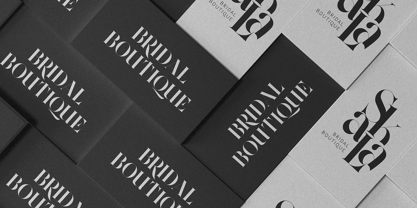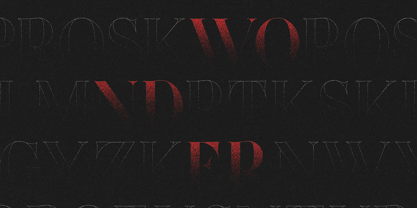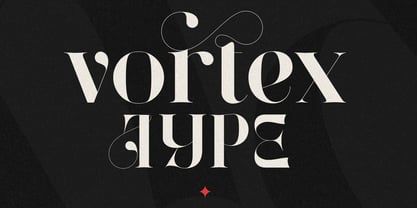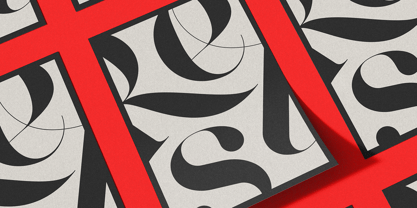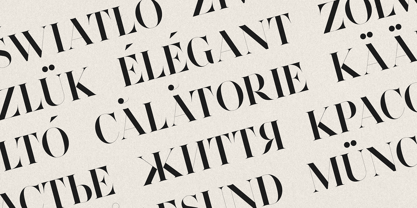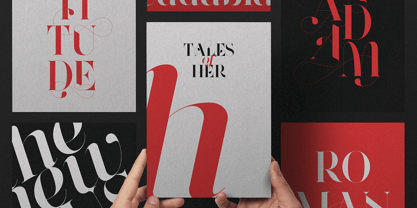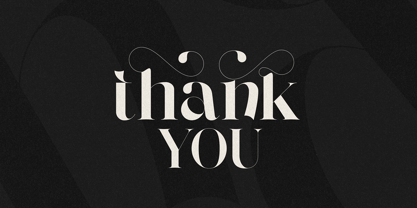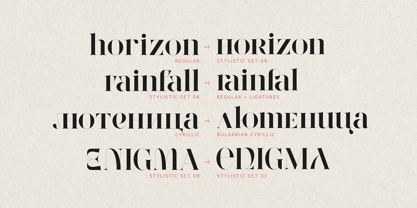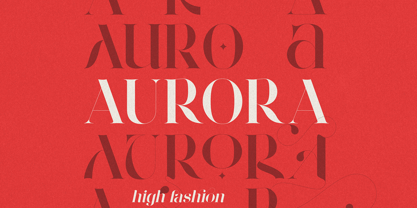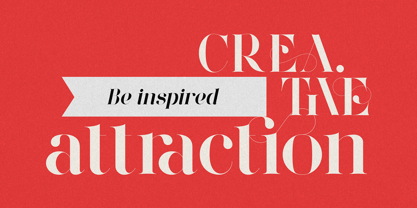
Vortex Type
by VP Creative Shop
The Vortex Type Font Family was designed by Vladimir Fedotov, Plamen Petrov and published by VP Creative Shop. Vortex Type contains 2 styles and family package options.
Vortex Type – A Refined Serif for Branding, Editorial, and Luxury Design
Vortex Type is a high-end serif font designed for branding, editorial, and luxury aesthetics. With 2,882 meticulously crafted glyphs and support for 95 languages, including Cyrillic and Bulgarian Cyrillic, this font is perfect for designers who seek elegance and versatility.